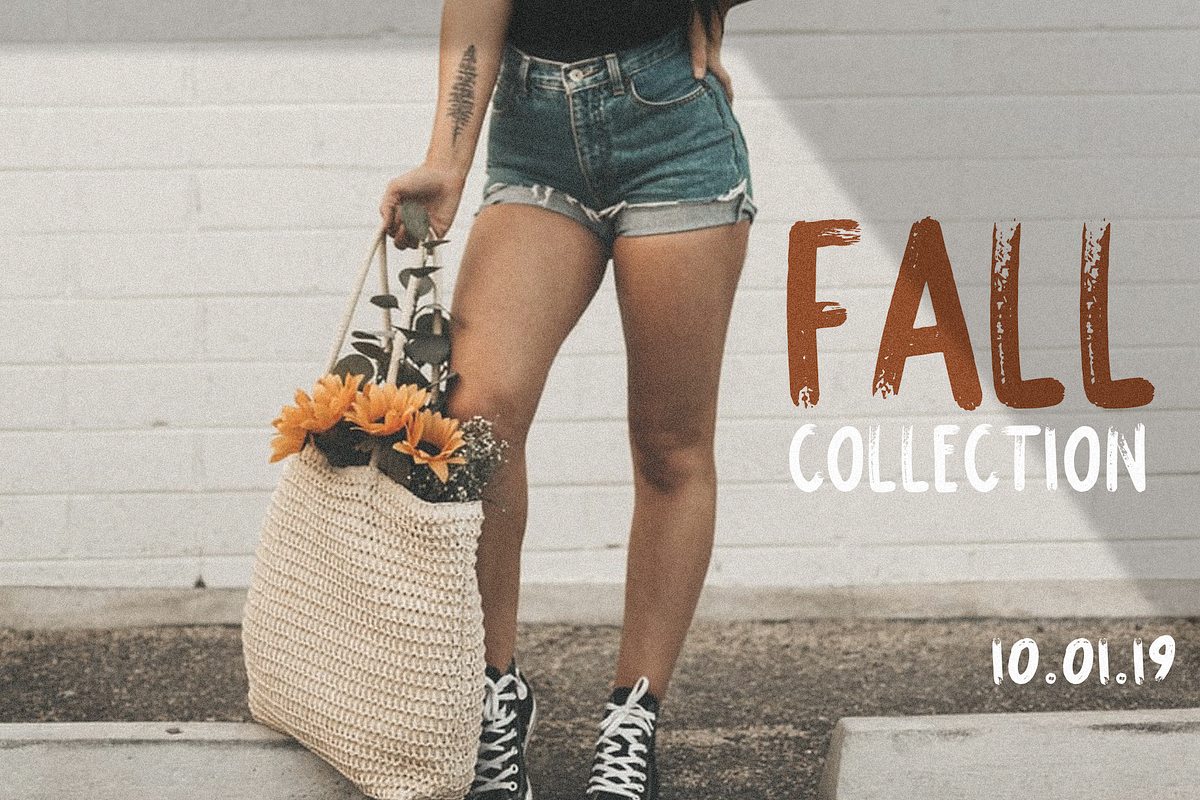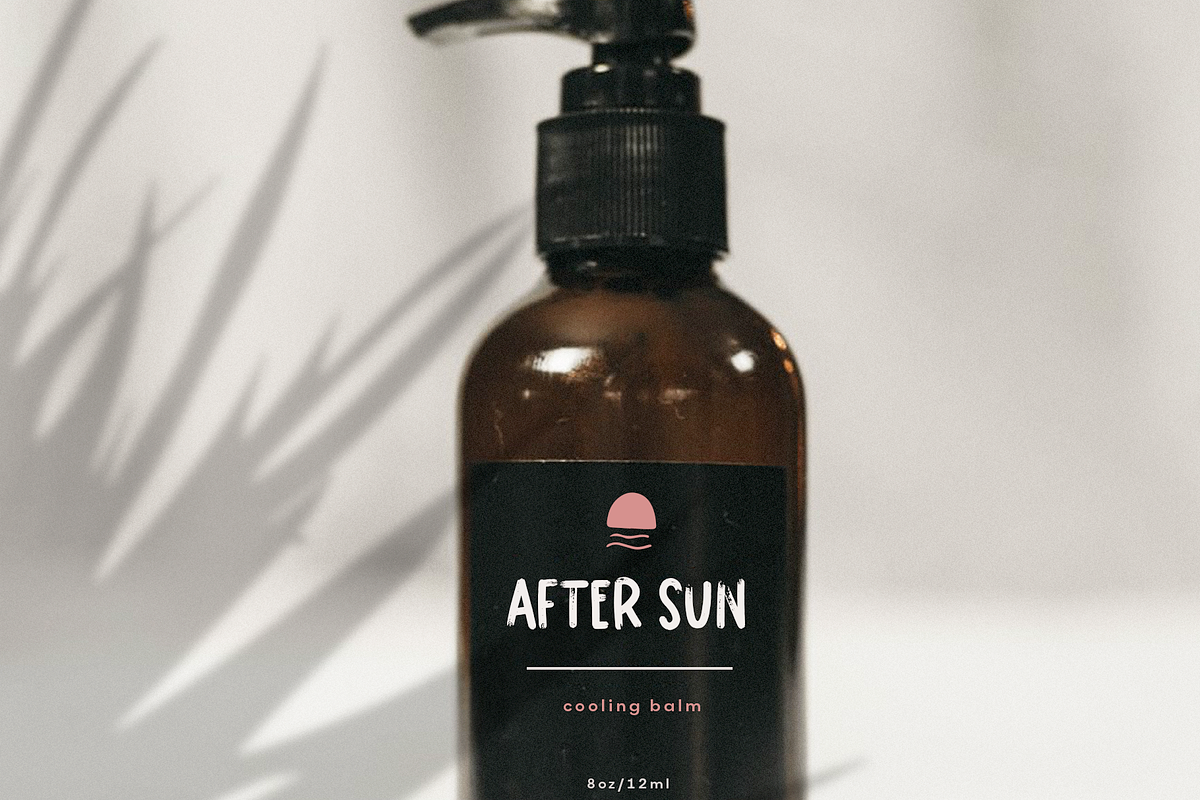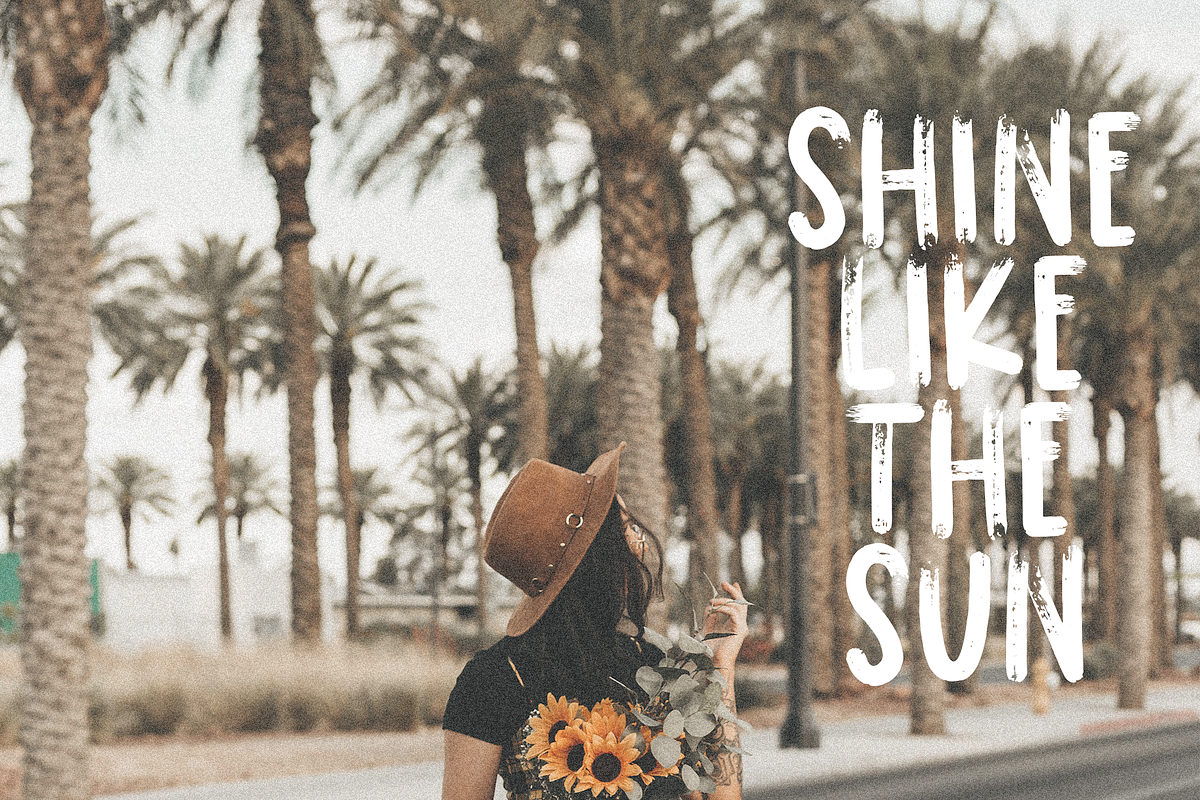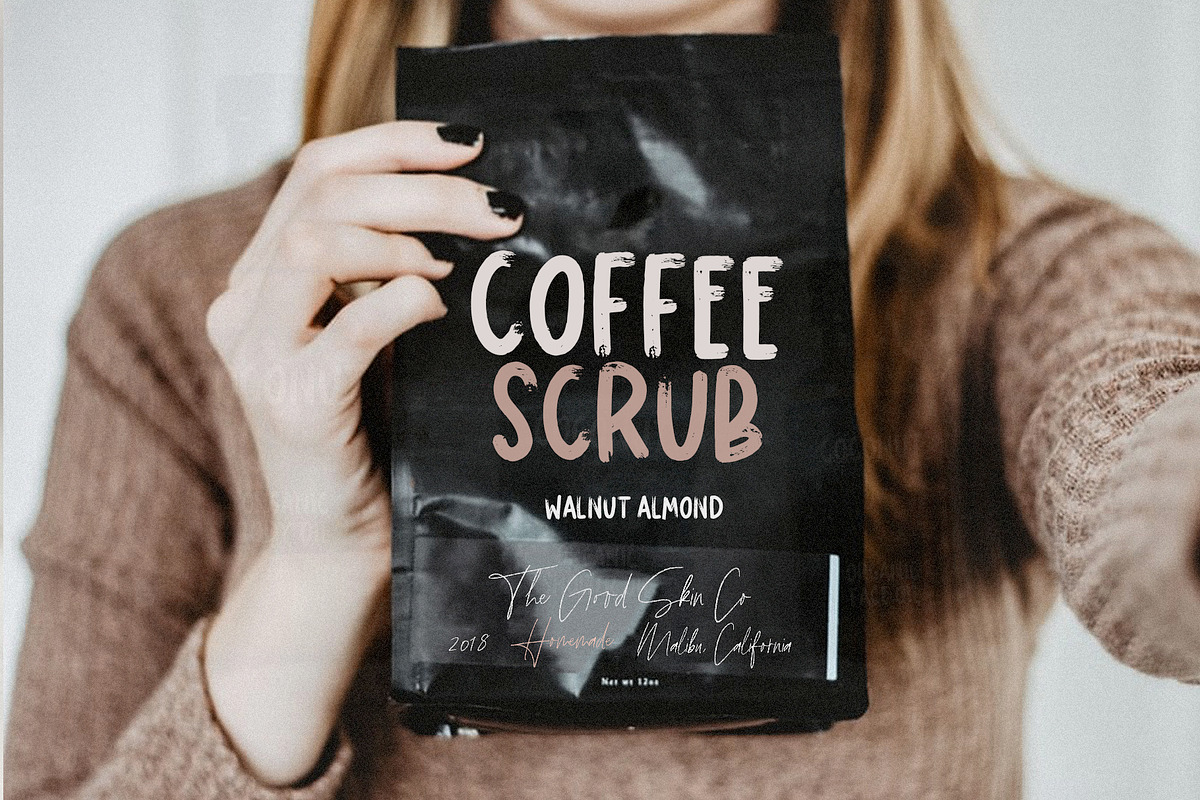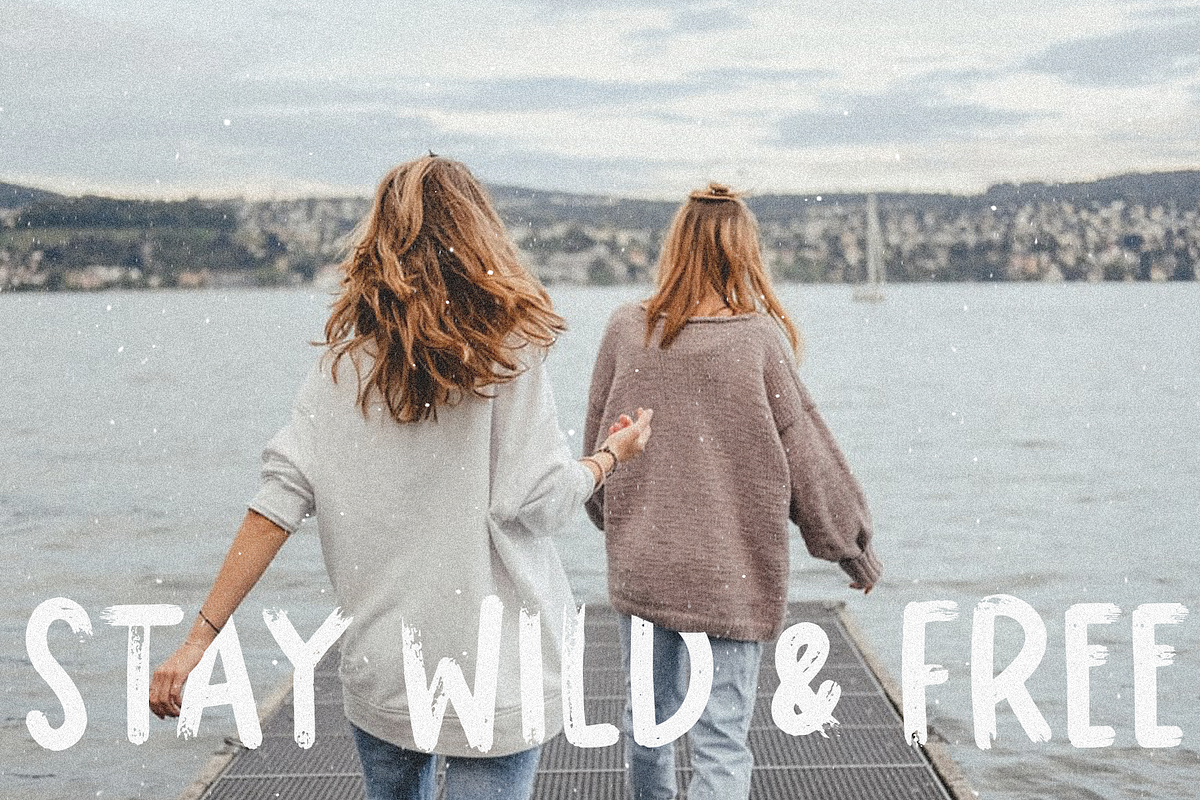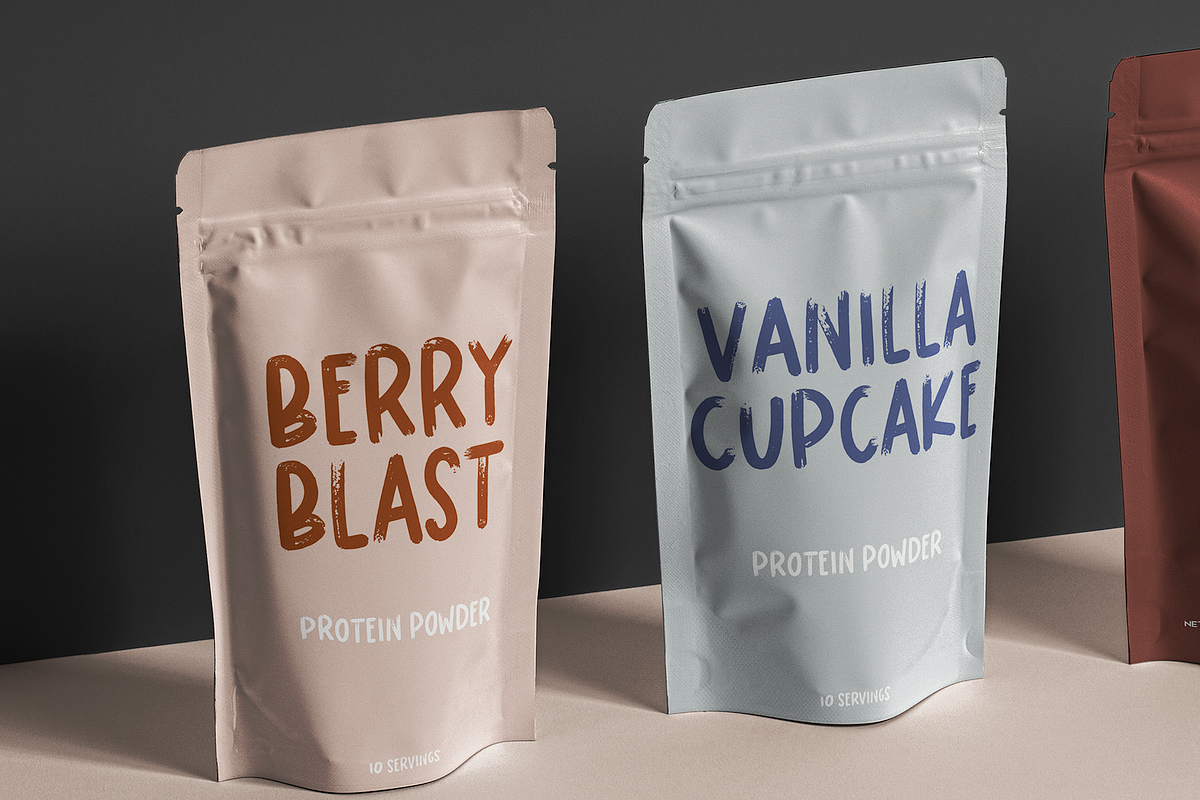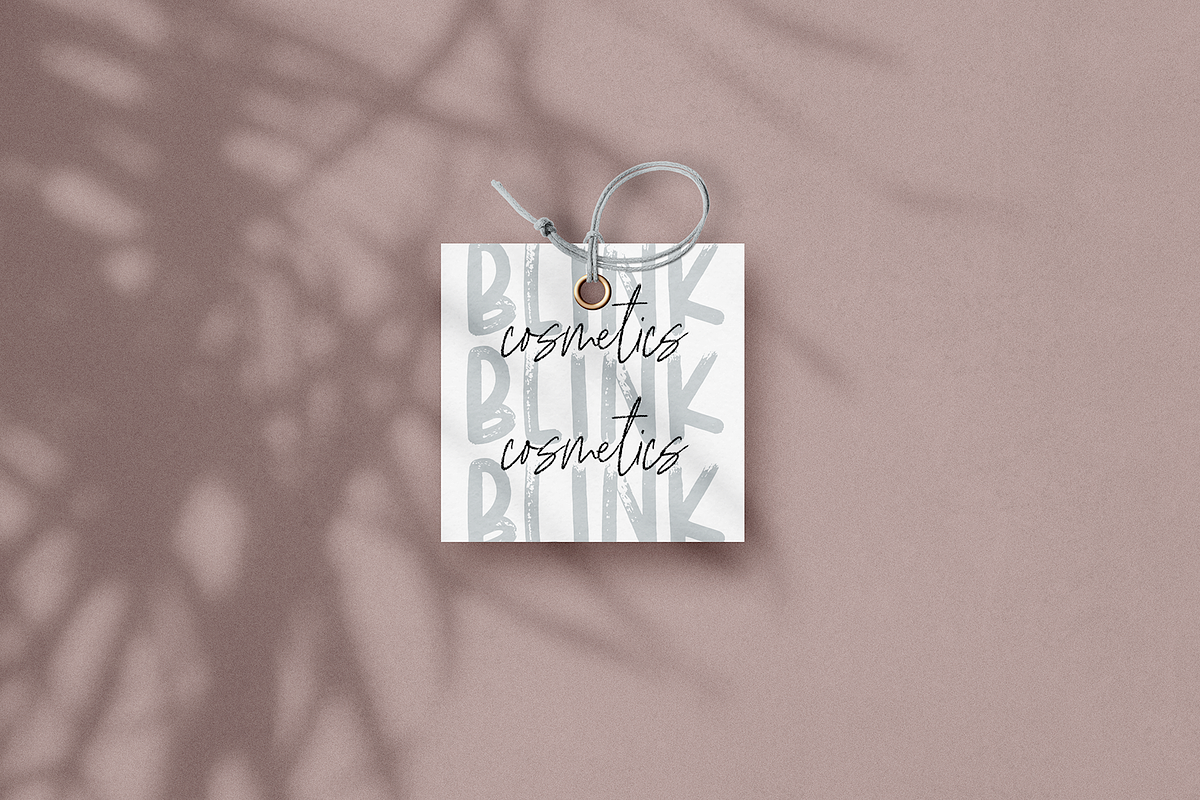
Dreamland | Handwritten Brush Font
Dreamland is a handwritten brush font with a bold look!
Dreamland is perfect for modern projects, packaging design, social media, business advertisements, marketing, blogs, logos, brandings, invitations and more!